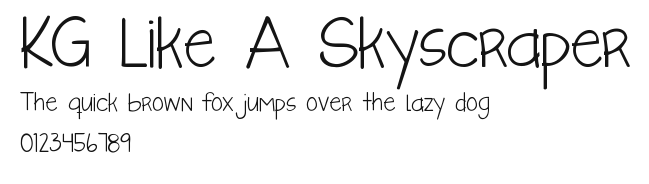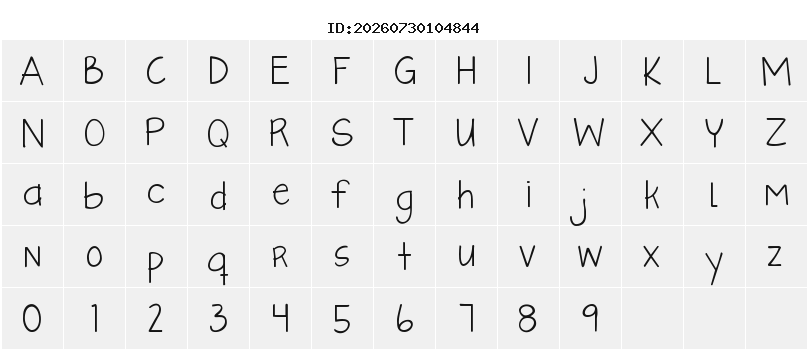
• Font Name: KG Like A Skyscraper
• Designer: Kimberly Geswein
About KG Like A Skyscraper.ttf
KG Like A Skyscraper.ttf is a modern, elegant sans-serif font designed for ultimate readability and visual harmony. Perfect for branding, headlines, web design, and print materials.